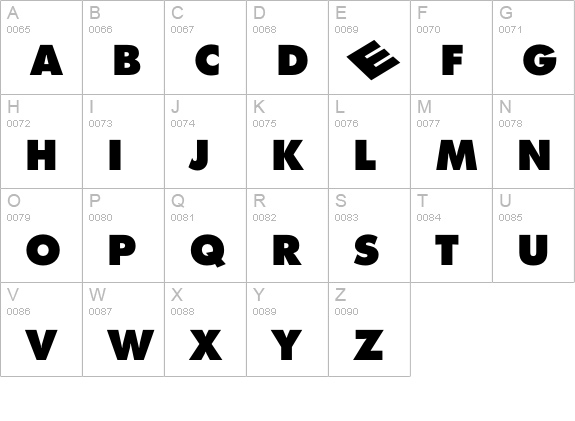
The Dell Logo Font is a sleek and modern typeface that exudes professionalism and sophistication. Its clean lines and sharp edges make it perfect for corporate branding and logo design. This versatile font is designed to make a bold statement and leave a lasting impression on viewers.